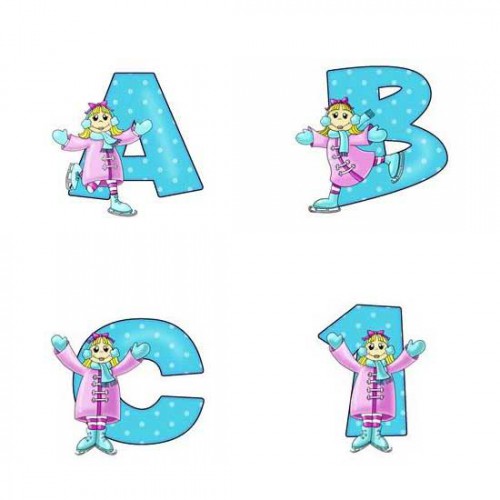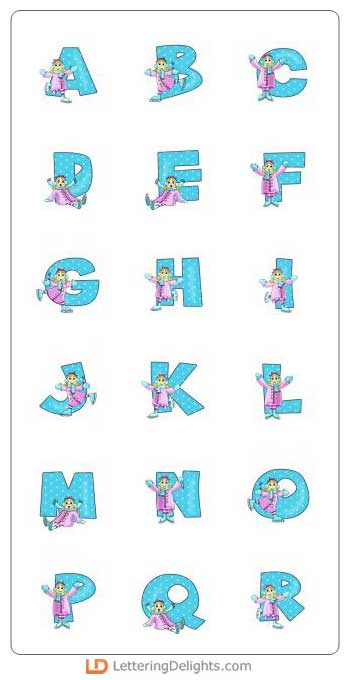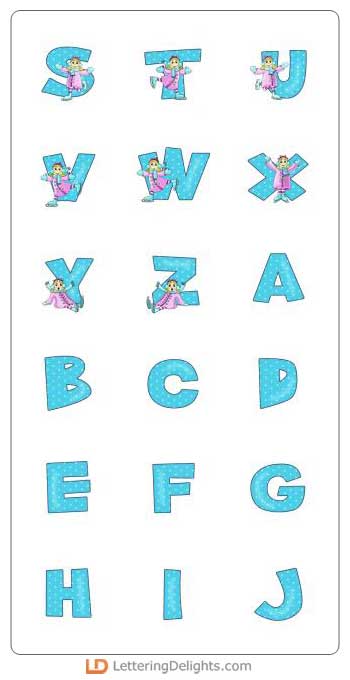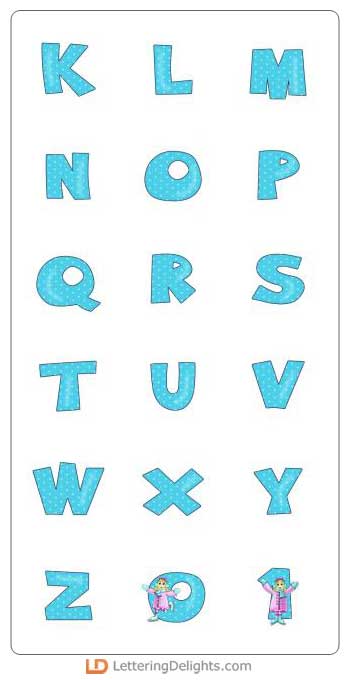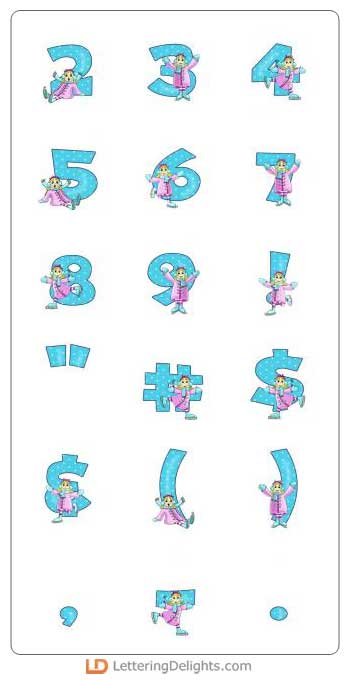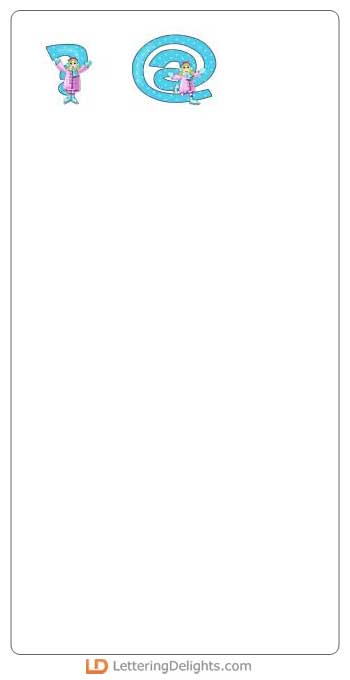
It's time to bundle up and strap on your ice skates. If you have a budding olympic skater, these digital alphabet letters are for you. Use the matching Journaling Delights set to bring your paper crafting ideas to life.